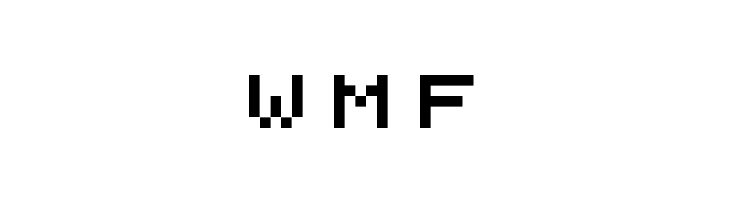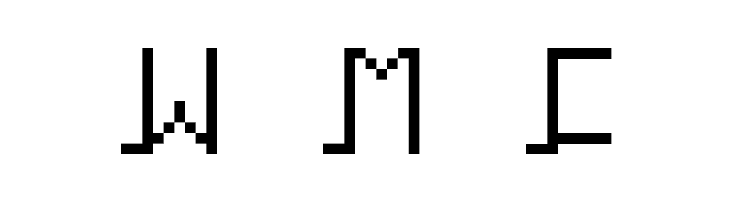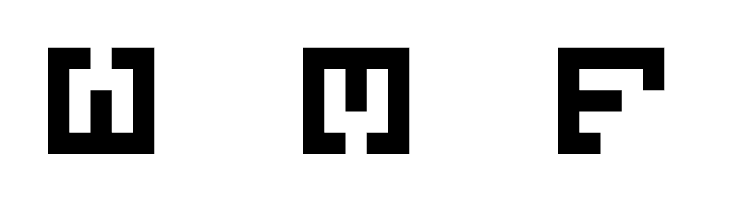
A pixelated, retro-style font with a blocky, digital appearance.
A bold, pixelated font with a retro, digital aesthetic.
A pixelated, retro-style font inspired by classic 8-bit video games.
A pixelated, retro-style font with a blocky, digital appearance.
A decorative and artistic font with elegant swashes and calligraphic flair.
An elegant, flowing font with graceful swash elements.
A bold, expressive script font with fluid, interconnected strokes.
A refined serif font with high contrast and elegant serifs.
A pixelated, geometric outline font with a retro digital aesthetic.
A playful, bold handwritten font with rounded edges and thick strokes.
A playful, whimsical font with smooth curves and elegant strokes.
A pixelated, retro-style font with a blocky, 8-bit digital appearance.
A retro, pixelated font with a digital, geometric style.
A geometric, pixelated font with a digital, retro aesthetic.
A pixelated, retro-style font with a blocky, digital aesthetic.
A bold, geometric sans-serif font with a modern, industrial feel.
A playful and decorative font with bold strokes and whimsical details.
A modern, geometric sans-serif font with an extra light weight.
A pixelated, grid-based font reminiscent of retro digital displays.
A playful, casual handwritten font with irregular strokes and an organic flow.
A bold, high-contrast serif font with geometric influences and sharp serifs.
A bold, slightly italicized font with strong, dynamic characters.
An elegant script font with fluid, cursive strokes and high contrast.
A playful, handwritten font with smooth, flowing lines and a casual style.
A bold, pixelated font with a retro, digital aesthetic.
A bold, pixelated font with a retro, 8-bit digital aesthetic.
A playful, bold script font with a melted chocolate appearance.
A bold, playful handwritten font with thick, uneven strokes and a lively appearance.
A pixelated, digital-style font with a retro video game feel.